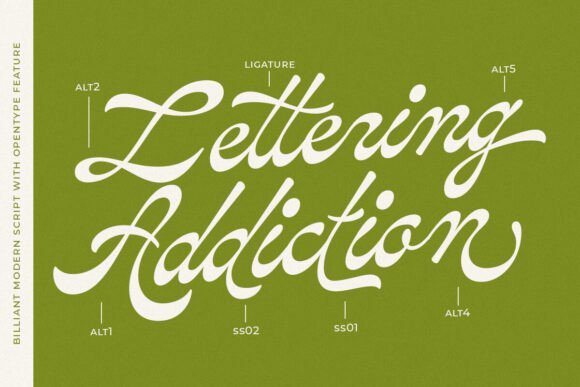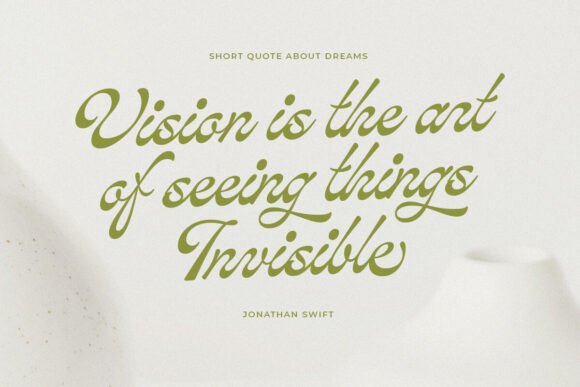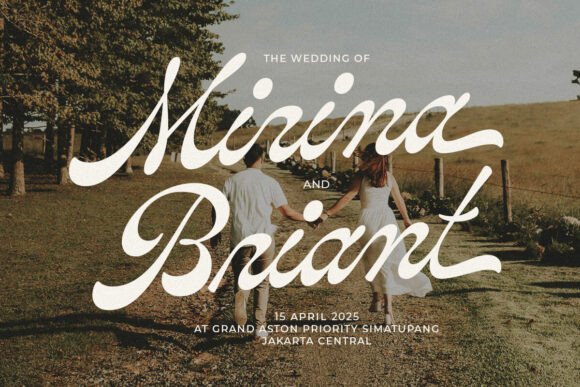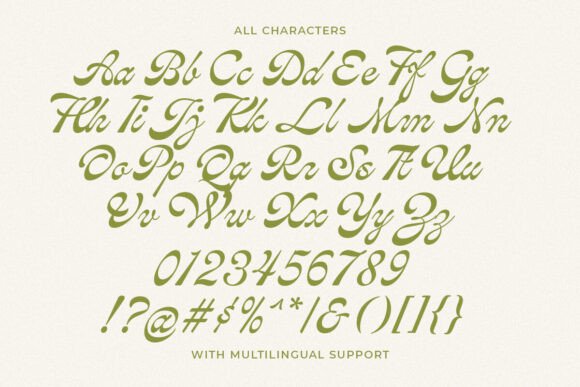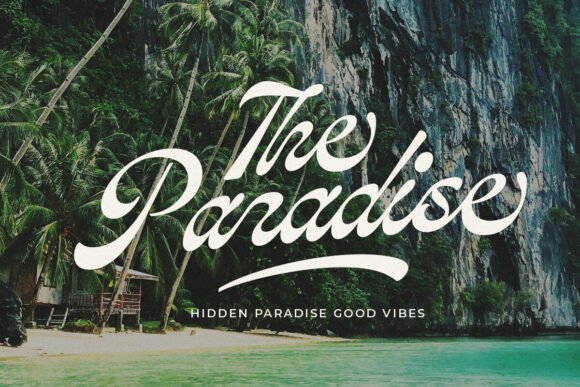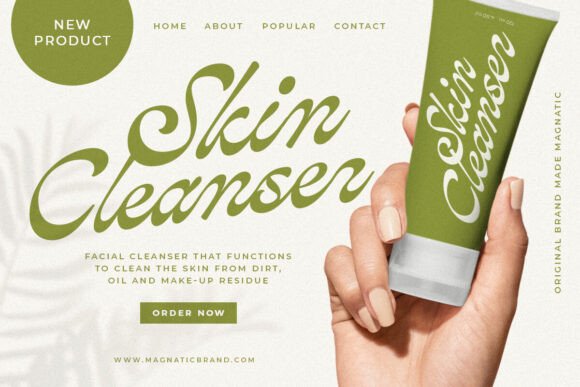
I still remember the frustration of working on a project, hours spent perfecting every detail, only to hit a roadblock when it came to choosing the right font. My client wanted something elegant, sophisticated, and stylish, but I just couldn’t seem to find the perfect fit. That was until I stumbled upon Brilliant, a modern script typeface that’s been a game-changer for my design work.
Meet Brilliant: The Elegant Script Font
Brilliant is a stunning script font that exudes elegance and sophistication. Its smooth curves, graceful strokes, and refined balance between boldness and delicacy make it perfect for adding a touch of luxury to any project. Whether you’re a designer, crafter, or creative hobbyist, Brilliant is sure to impress.
My Honest Review of Brilliant
- ✨ Elegant and flowing design that’s perfect for titles, headings, and body text
- ✅ Smooth curves and graceful strokes that add a touch of sophistication to any project
- 💫 Refined balance between boldness and delicacy, making it versatile for various design applications
- 🎉 Extensive OpenType features, including glyphs and stylistic alternates, that allow for endless creativity
- 🤔 Limited use for body text due to its script nature; best used for titles, headings, and accents
- ⚠️ May require some adjustments for use on smaller font sizes or in certain digital formats
The Designer Inspiration Behind Brilliant
Brilliant was designed with the intention of creating a modern script font that’s both elegant and versatile. The designer drew inspiration from classic calligraphy and modern typography, combining smooth curves and flowing lines to create a truly unique font. Whether used for titles, headings, or body text, Brilliant is sure to add a touch of sophistication to any project.
| Font Name | Billiant Font |
| Author | letterhend |
| What is Brilliant font best used for? | Brilliant is best used for titles, headings, and accents, where its elegant and flowing design can shine. |